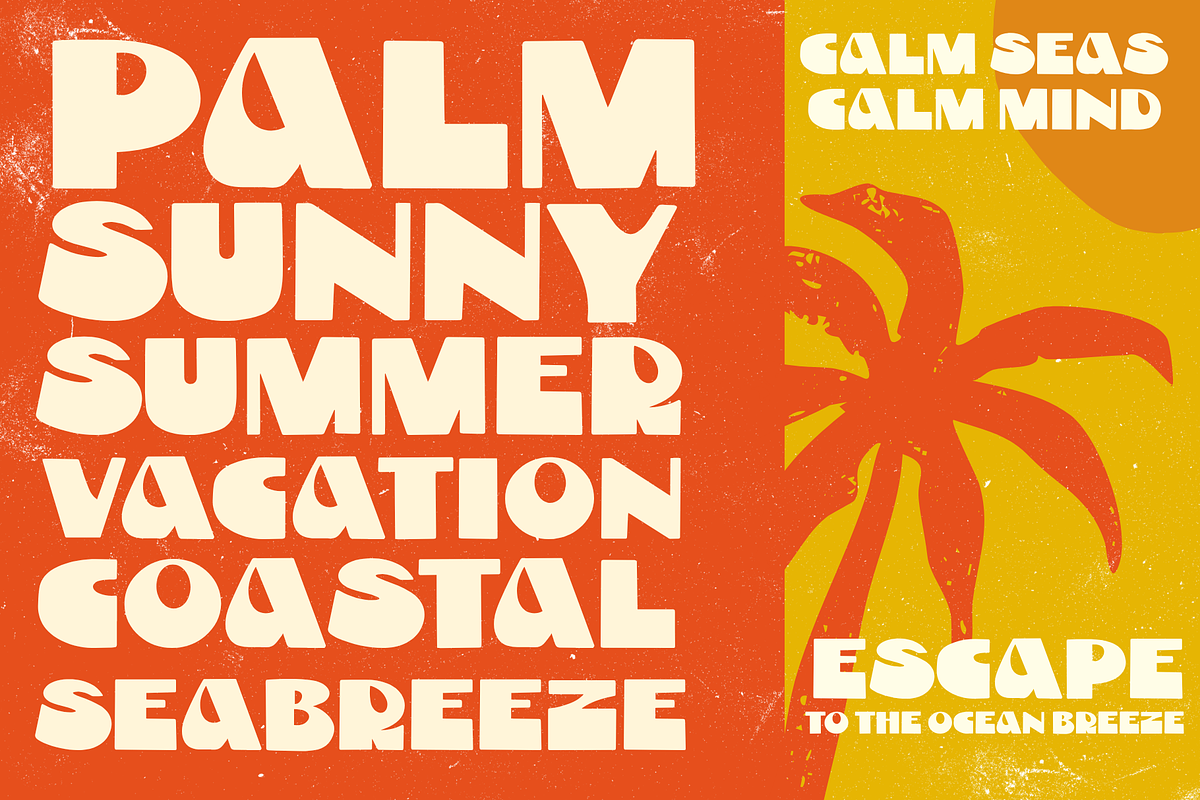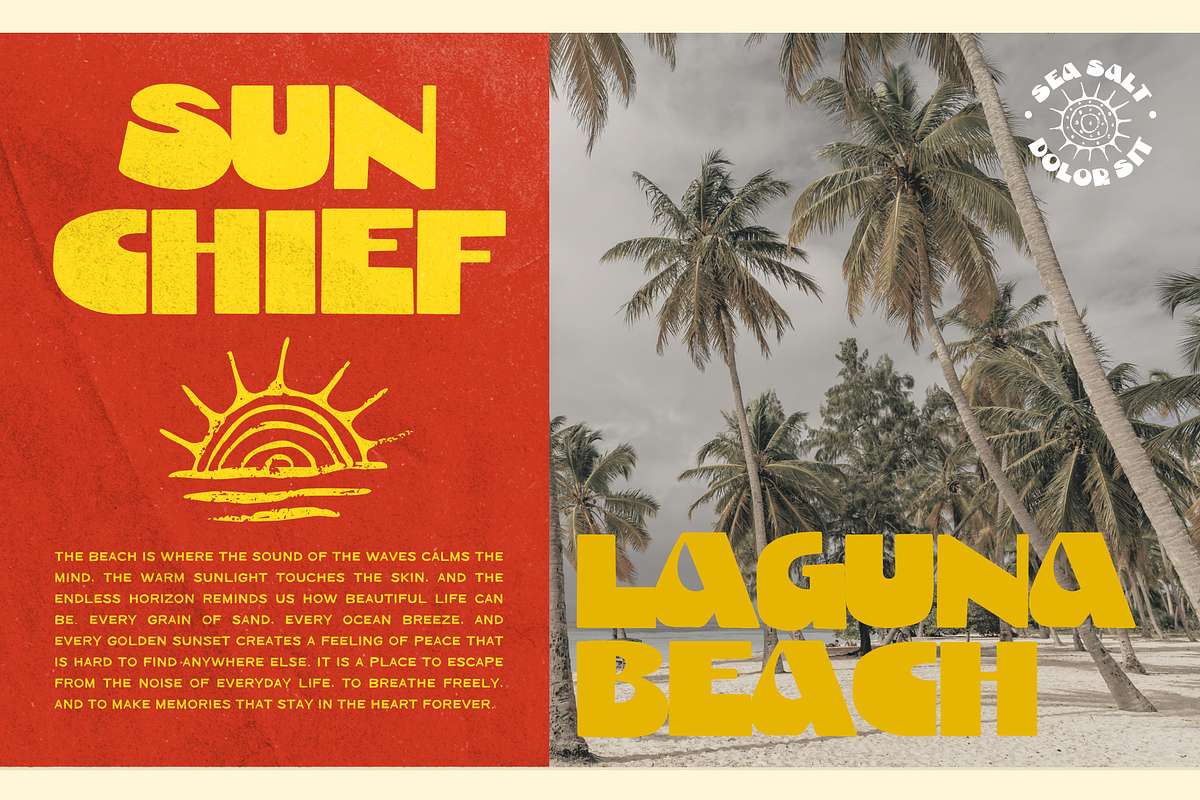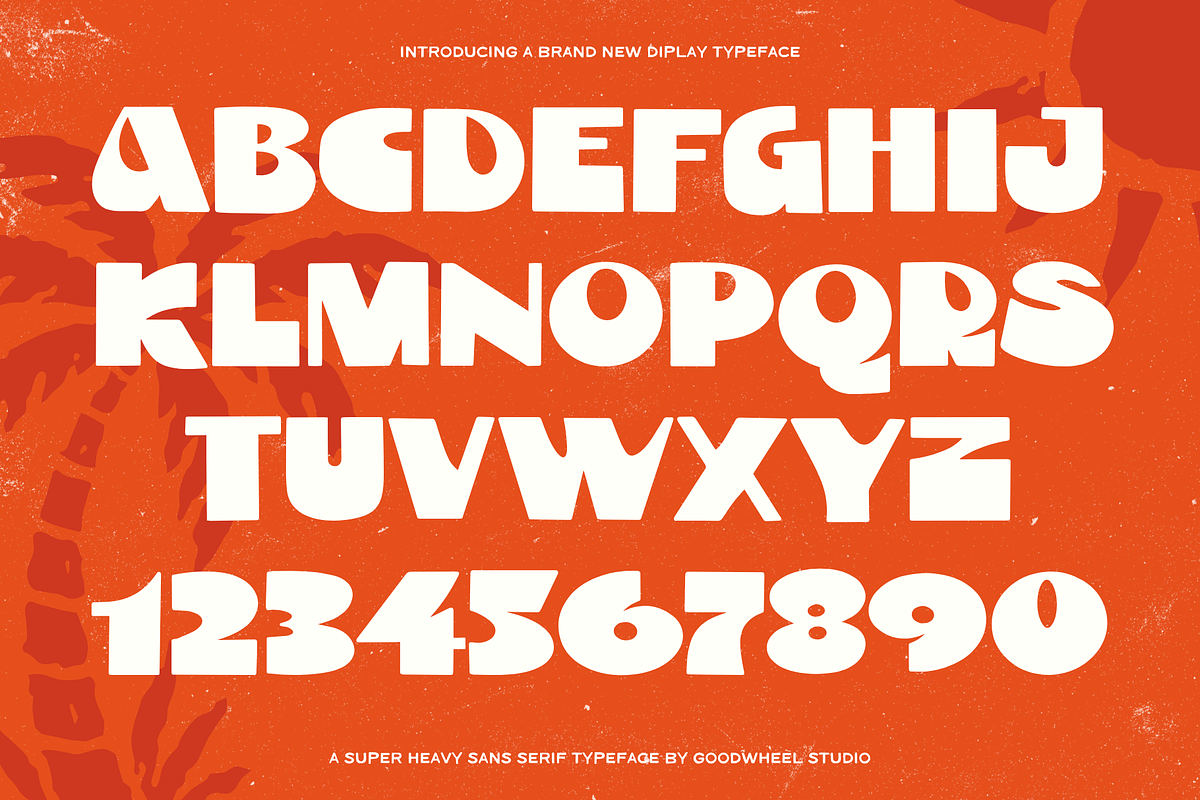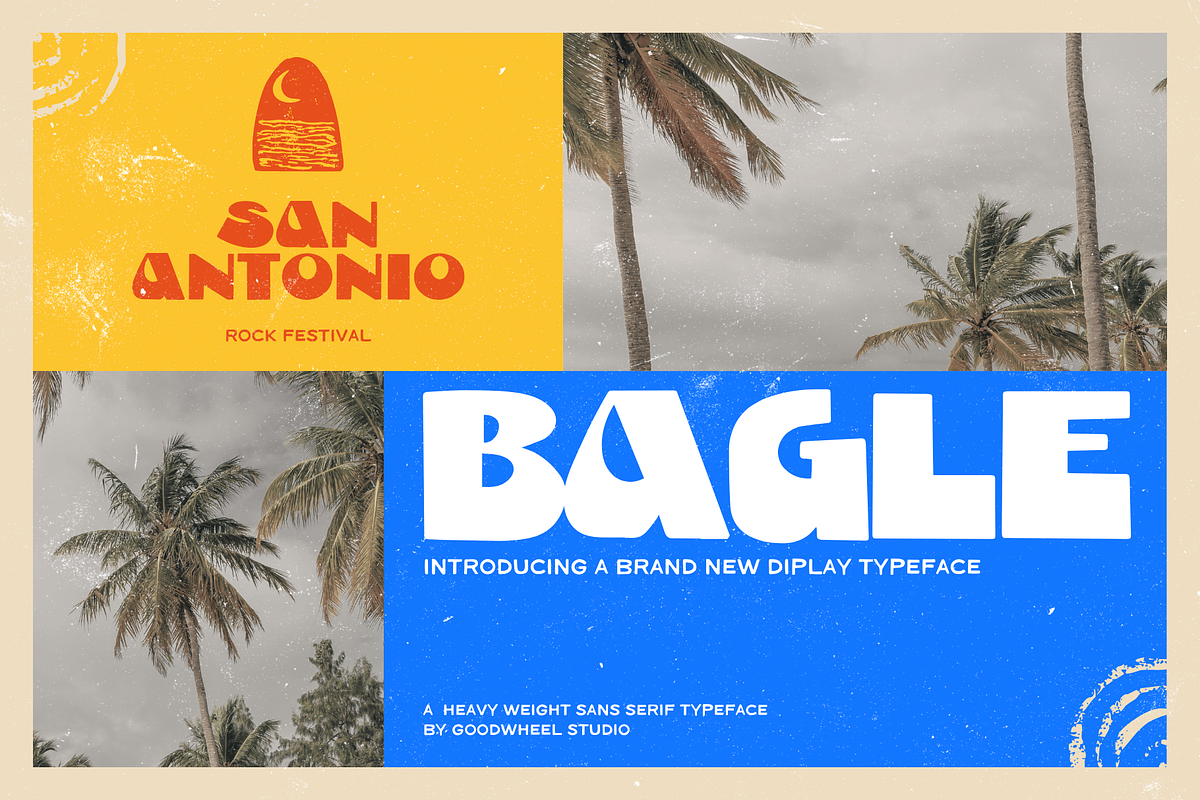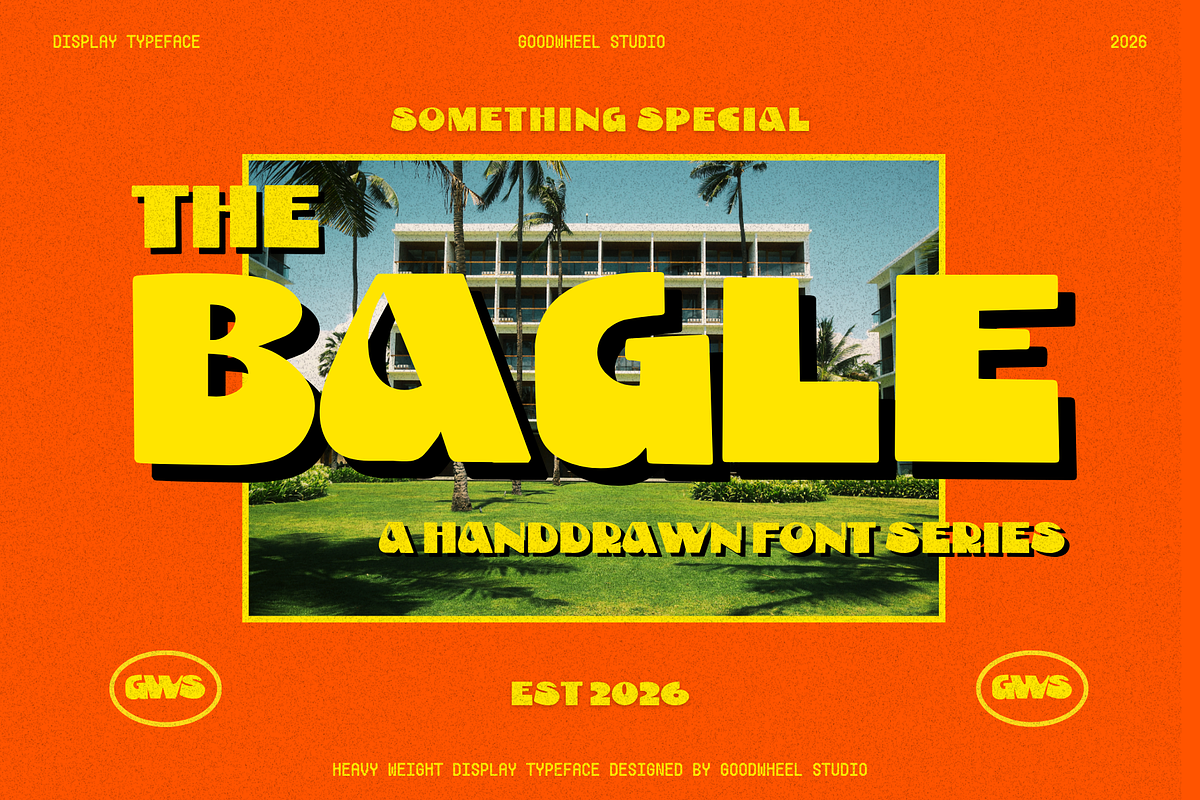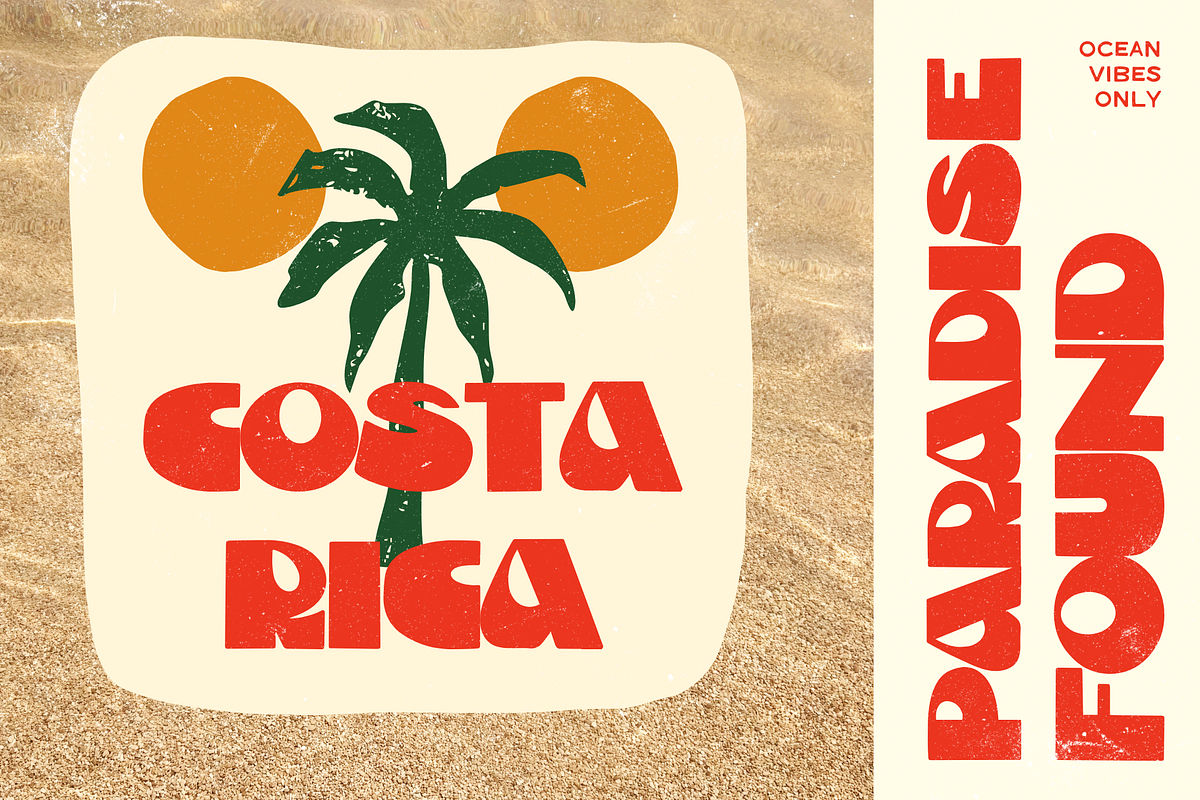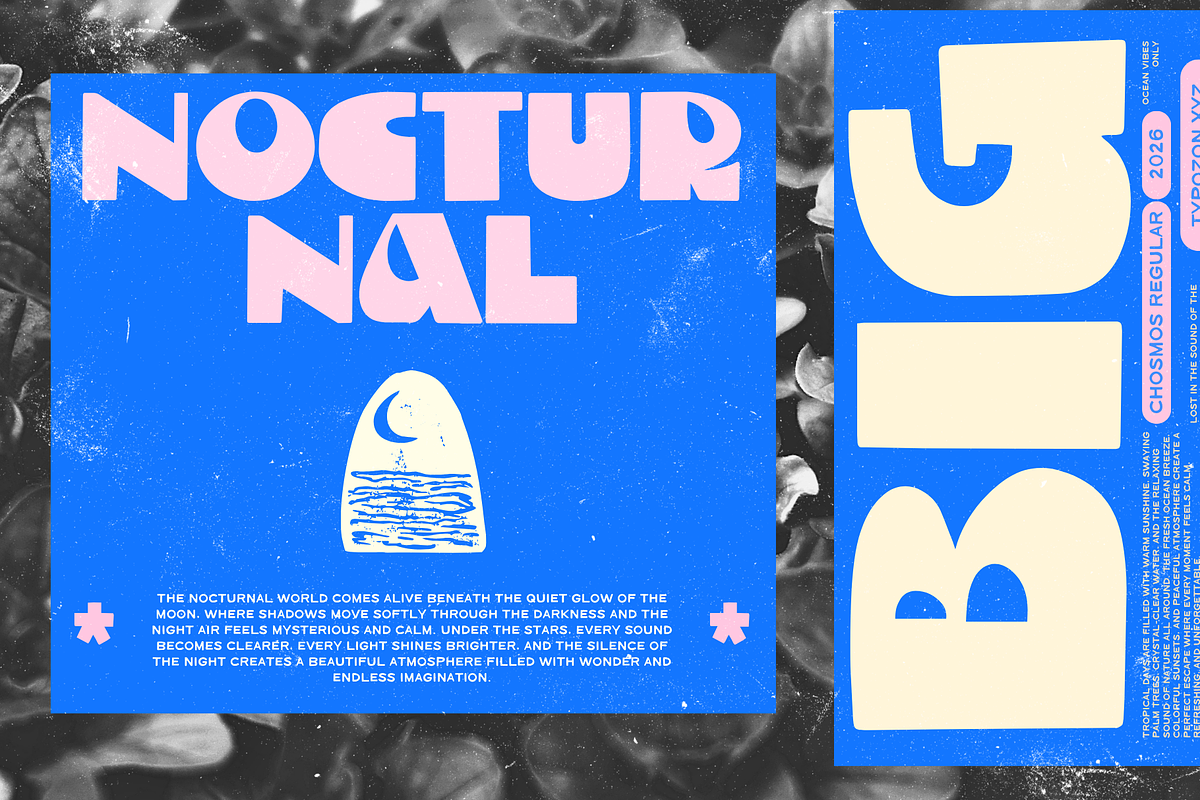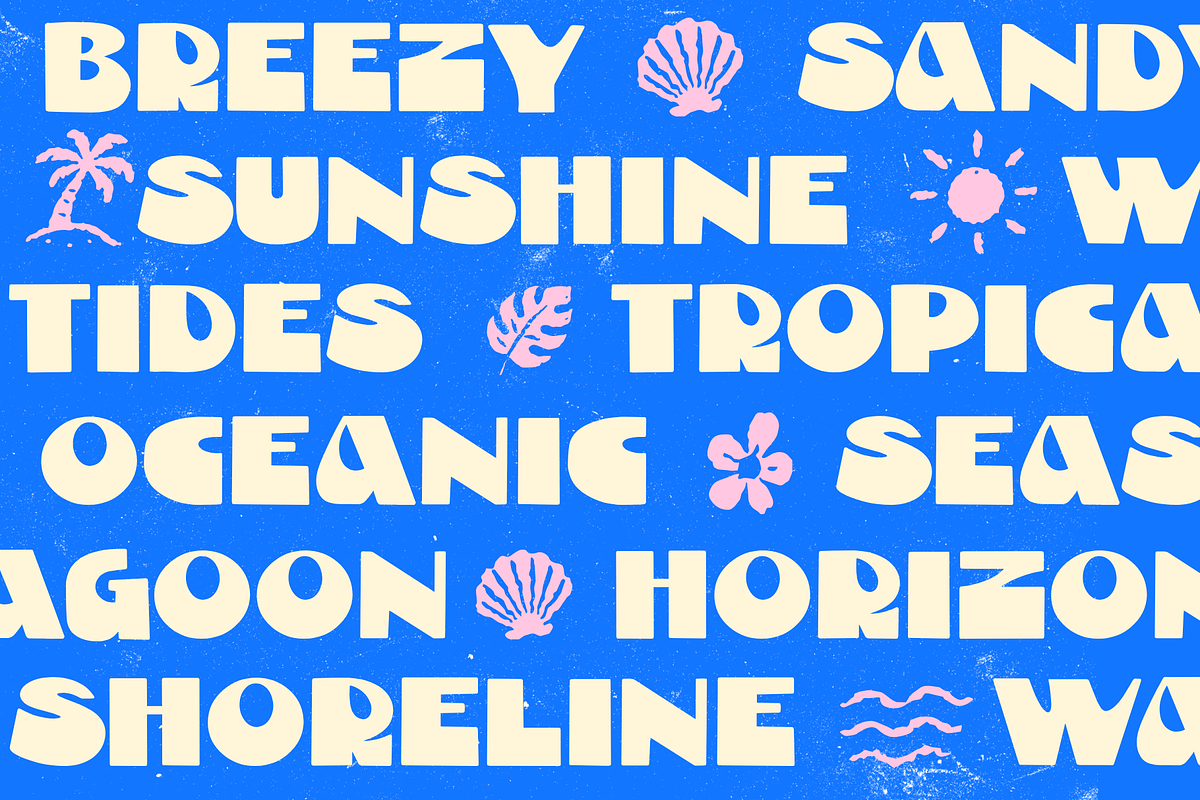
Bagle - Handdrawn Typeface
BAGLE is a bold retro display font inspired by tropical signage, vintage surf culture, and funky 1970s typography. Designed with chunky geometric shapes, playful curves, and sharp stylistic cuts, this typeface creates a loud and energetic visual impact perfect for standout headlines and expressive branding. Its compact structure delivers strong readability while maintaining a handcrafted and nostalgic personality. Ideal for posters, café branding, packaging, album covers, beach-themed graphics, apparel, and editorial layouts, Solara Groove pairs beautifully with textured backgrounds, vibrant color palettes, and organic illustrations. This font brings warmth, fun, and authentic retro charm into any creative project with effortless vintage appeal.